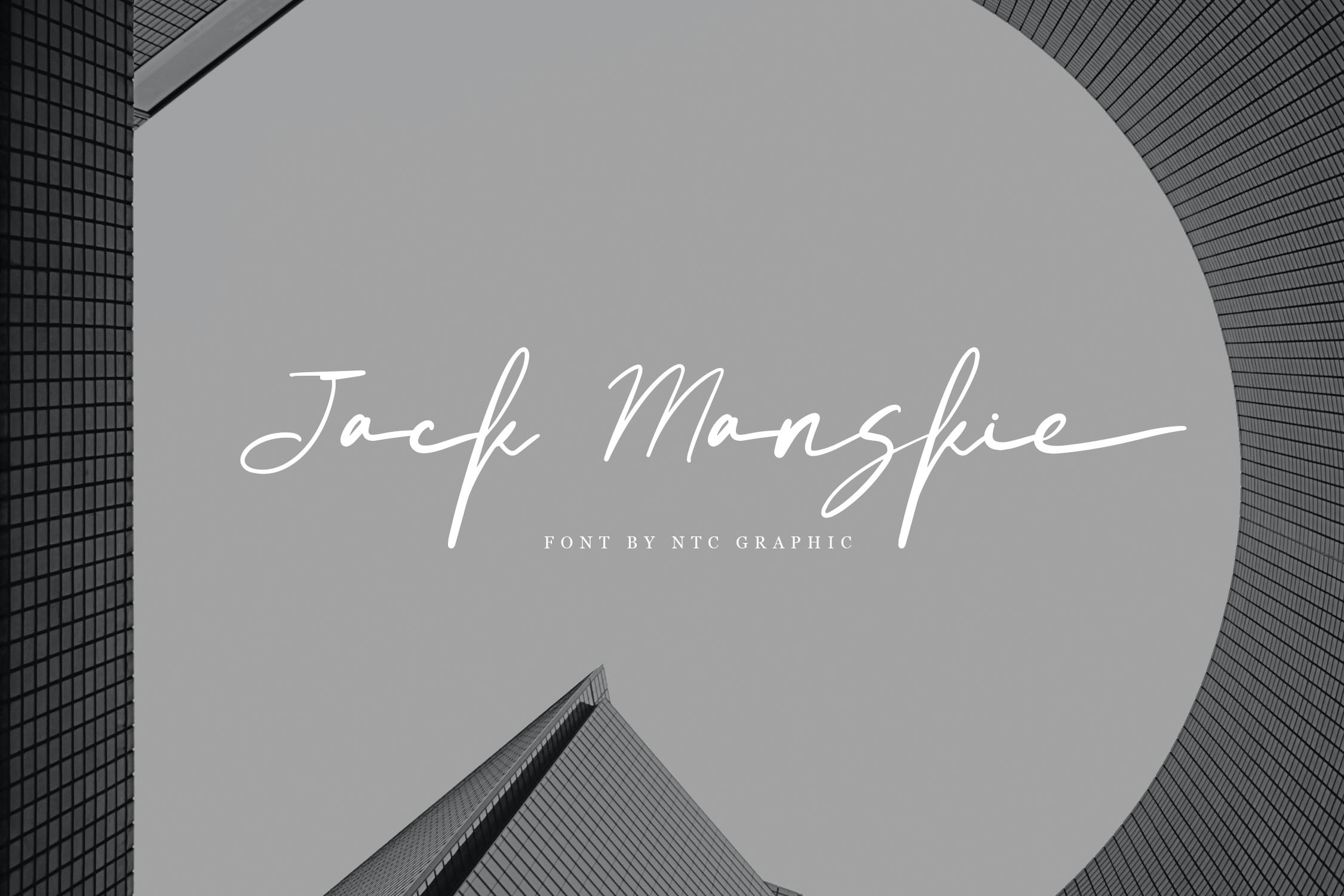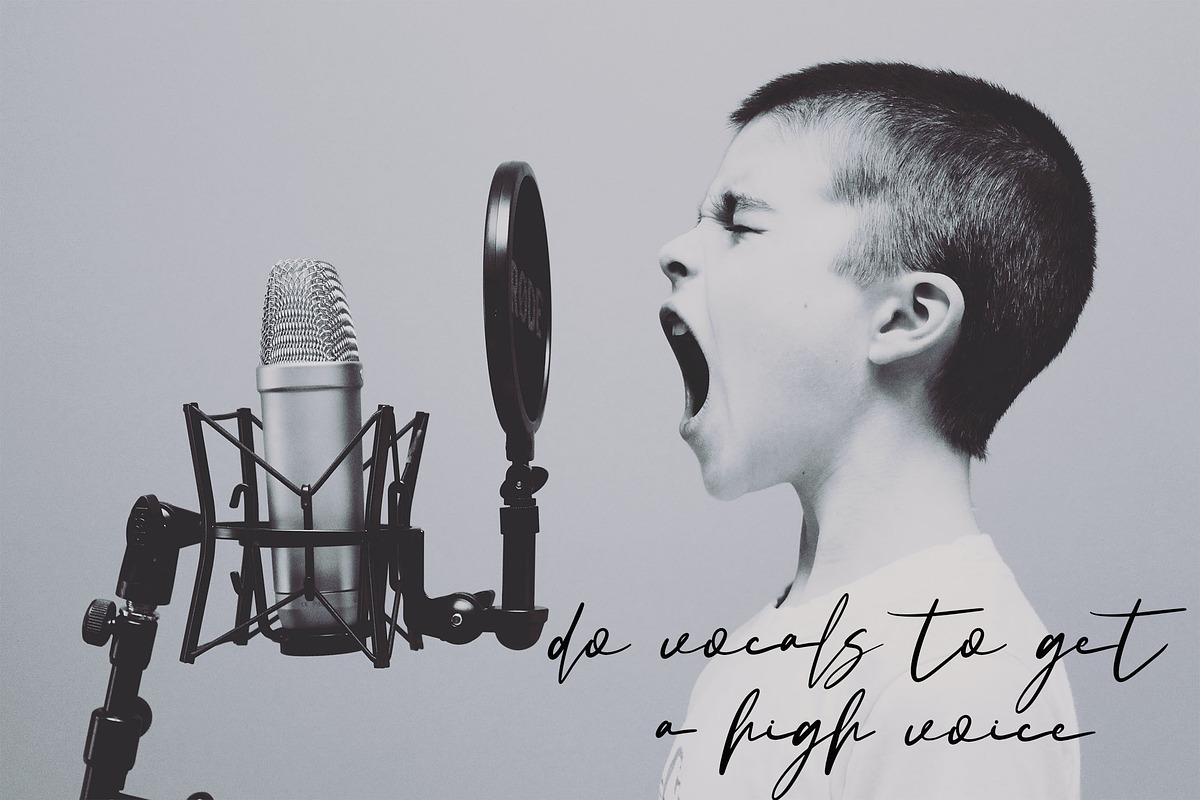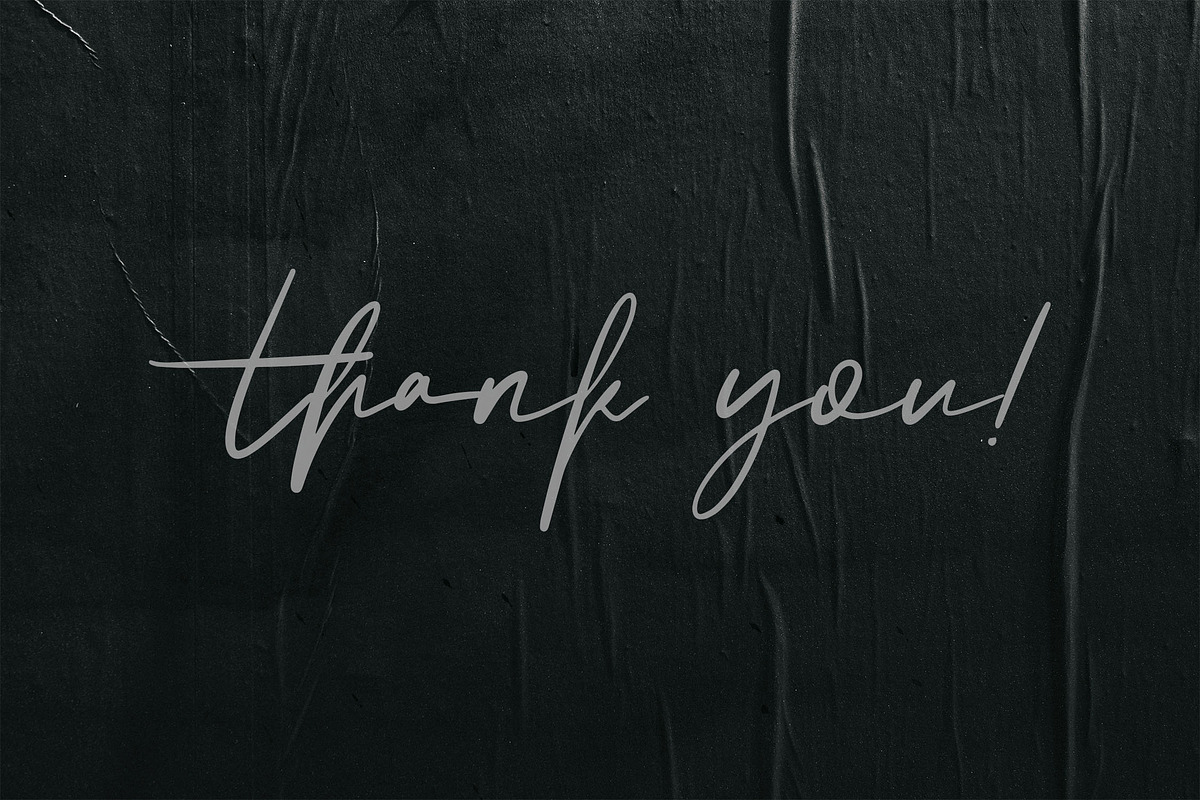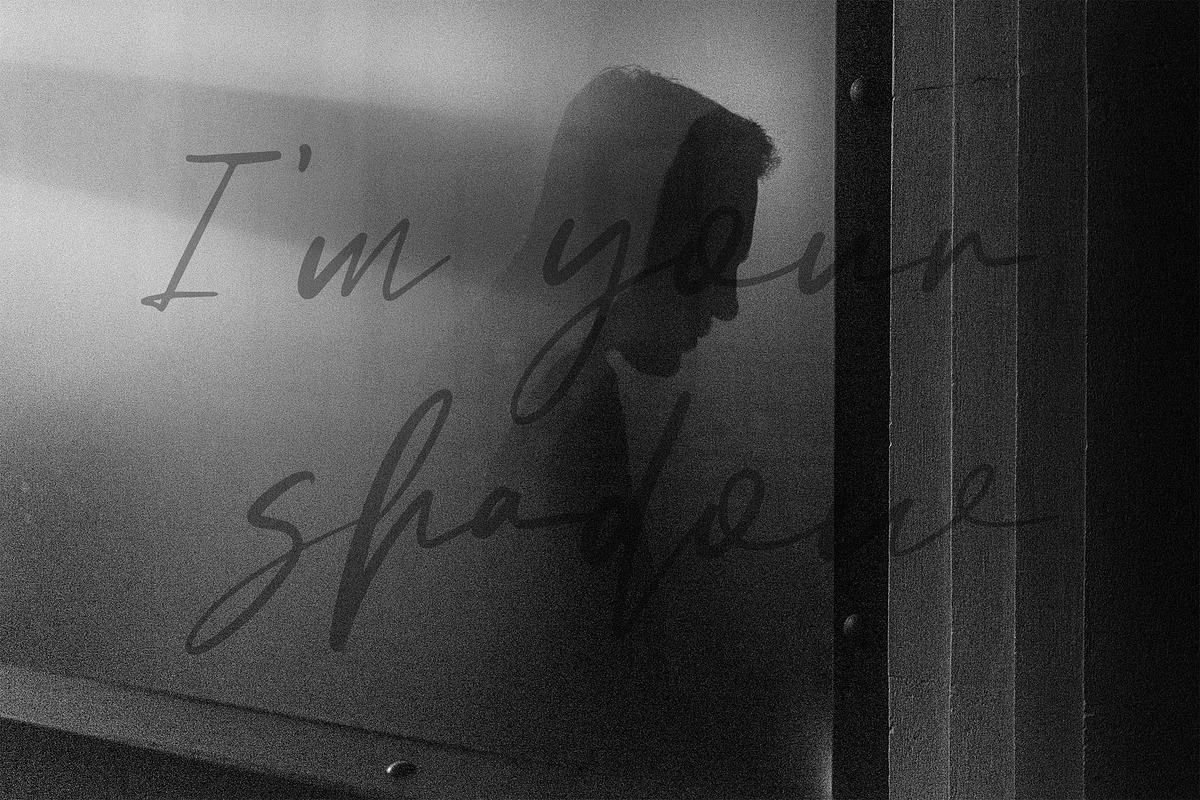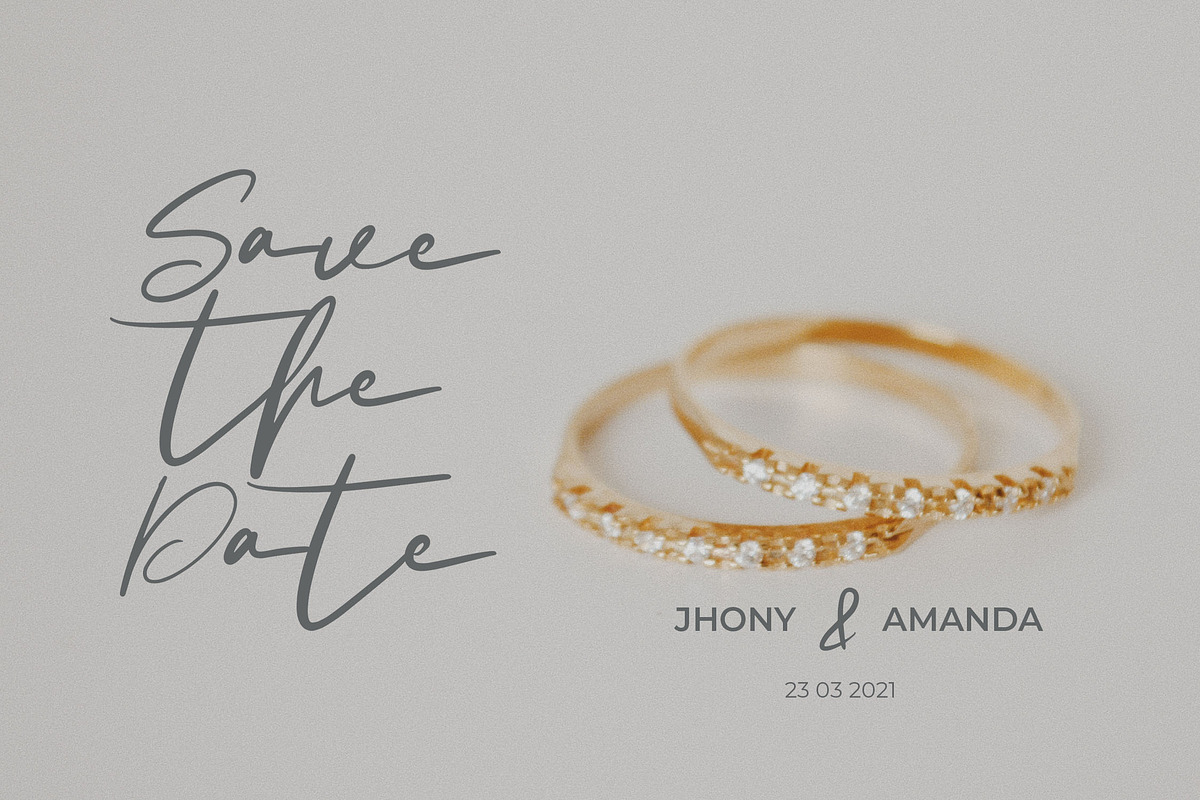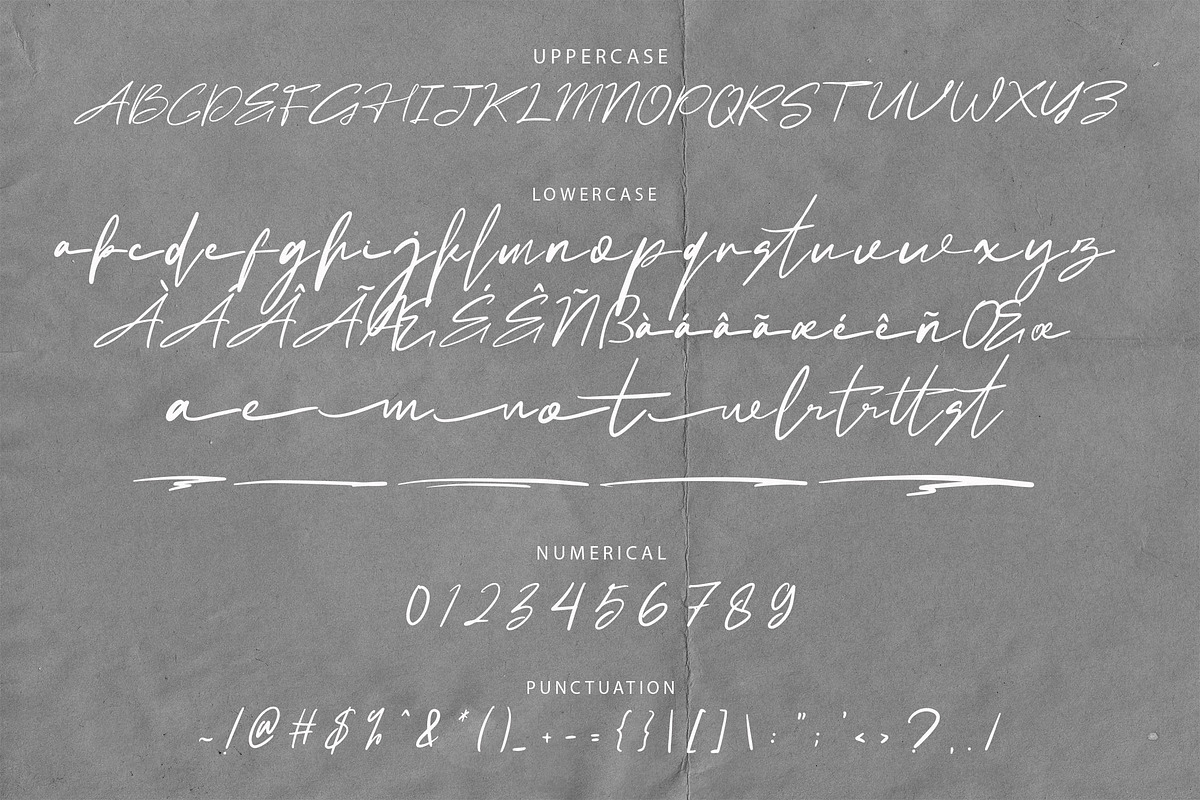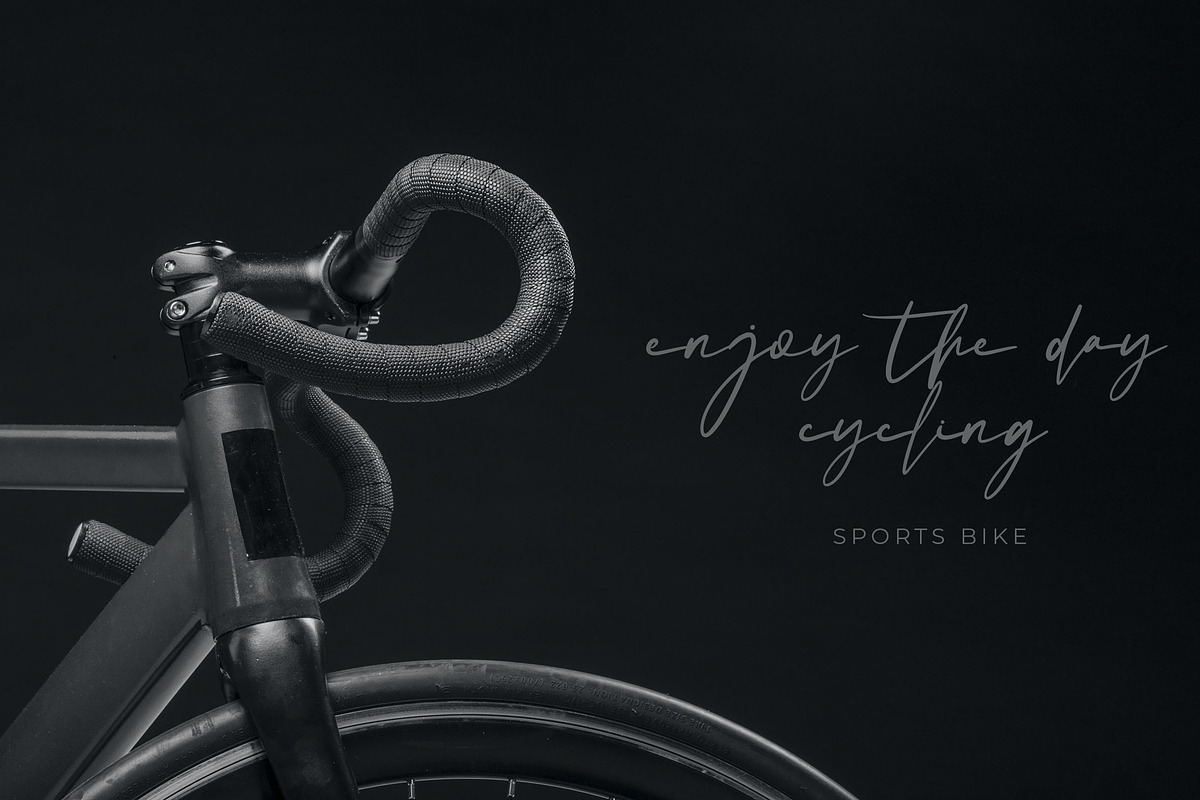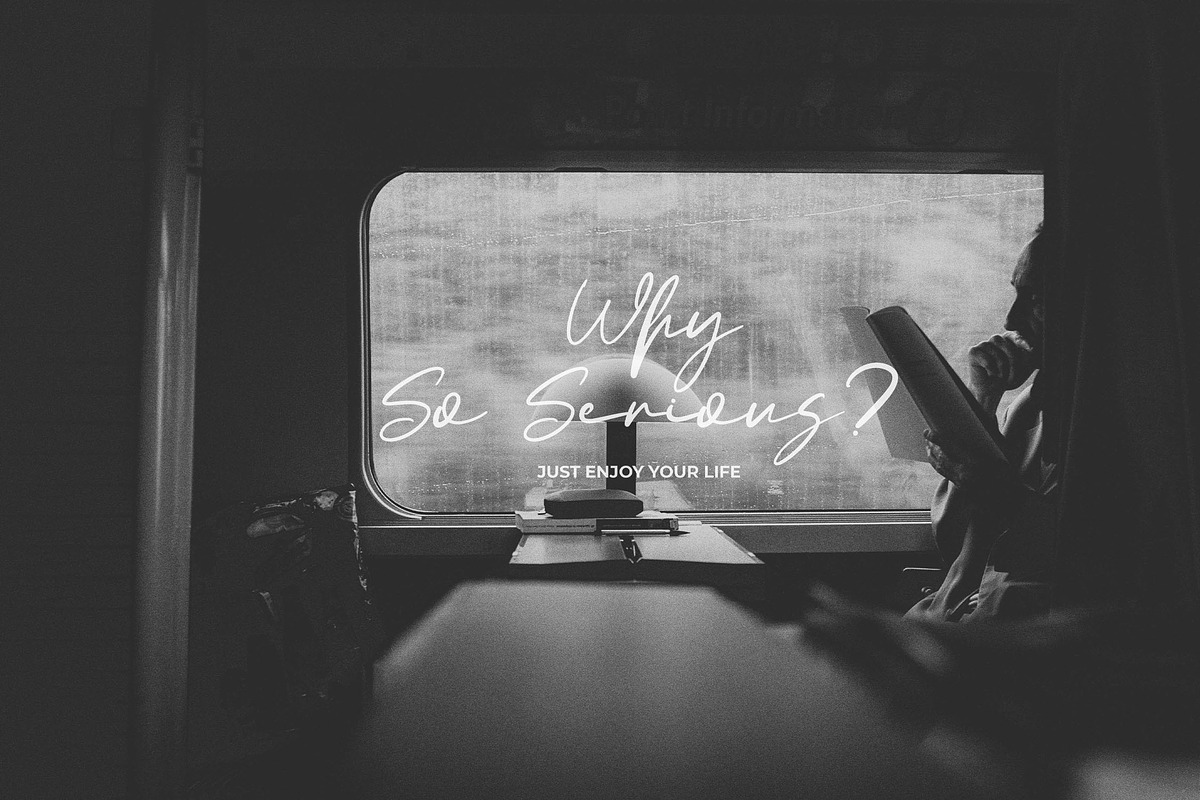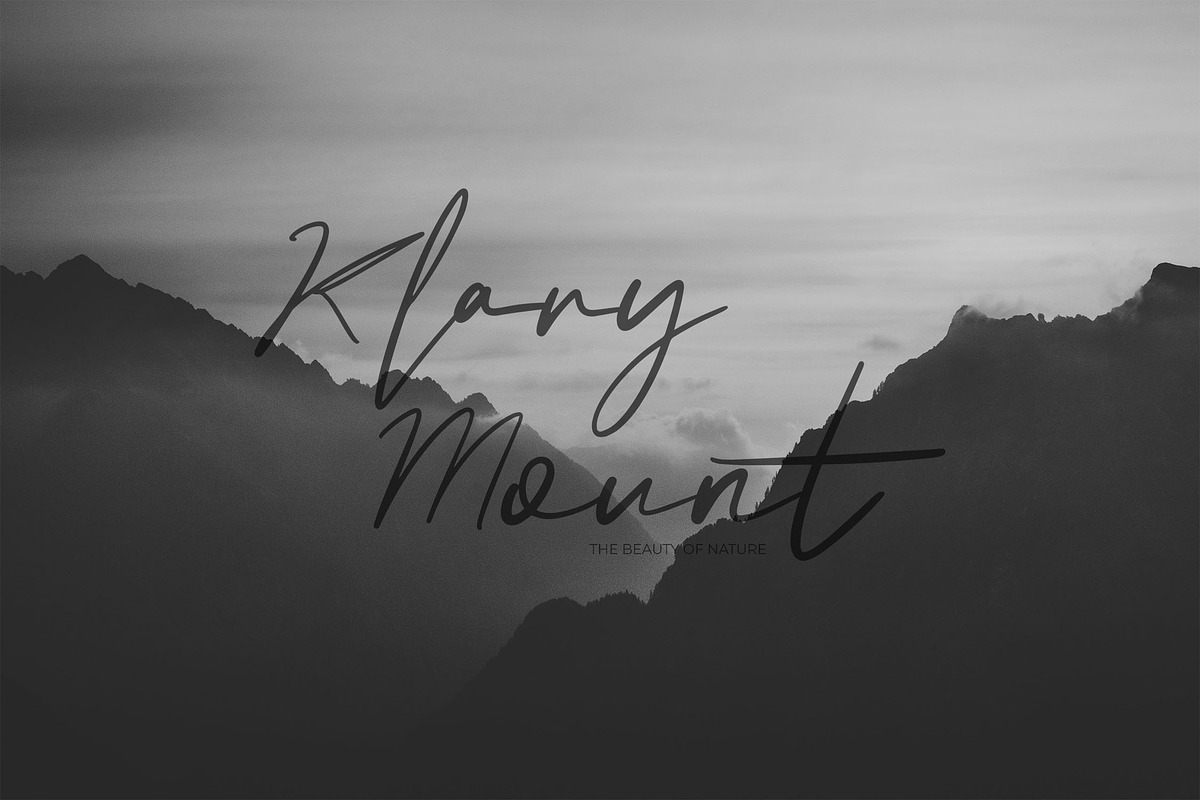
Jack Manskie Handwriting Script Font
Product Description:
Introducing Jack Manskie – A Handwritten Script Font to Elevate Your Design!
Jack Manskie is a stunning script font designed to bring a personal touch to your projects with its authentic handwritten style. Each character is meticulously crafted, giving your designs a unique, eye-catching appeal. Perfect for enhancing the visual charm of your product, this font adds creativity and elegance to any design.
- Includes Ligatures for smooth letter connections
- Stylistic Alternates and Swashes for added flair
- Multilingual support for global projects